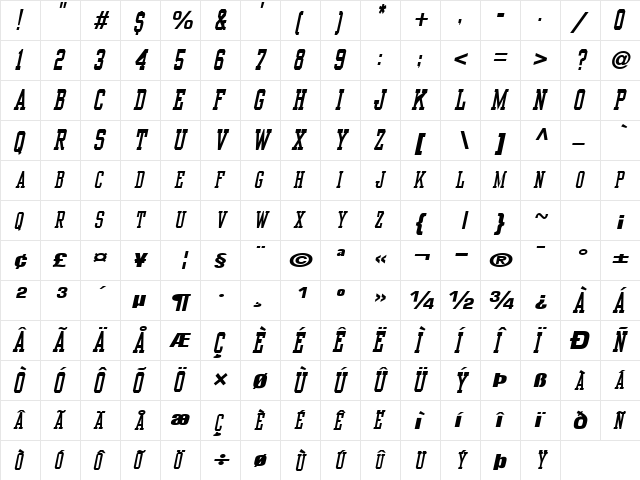
CastanetSCapsSSK BoldItalic Font Preview
CastanetSCapsSSK BoldItalic
Design Context for CastanetSCapsSSK Typeface
CastanetSCapsSSK offers clean, dependable letterforms without strong stylistic allegiance, making it a practical choice for designers who need flexibility. The slanted form adds forward momentum and visual energy. The heavy weight commands attention and anchors typographic hierarchies.
Pro Tip: Use CastanetSCapsSSK for emphasis, pull quotes, and subheadings where its slanted energy can add rhythm to the layout.